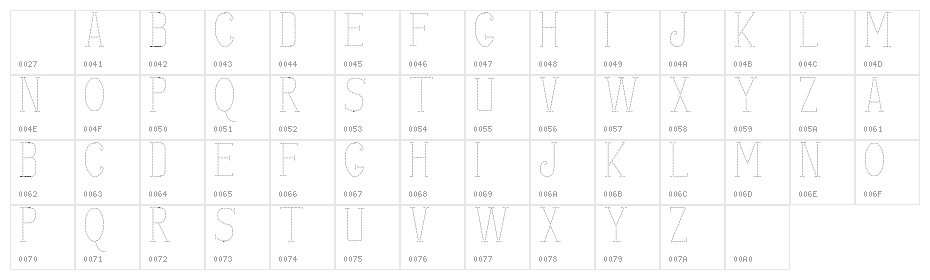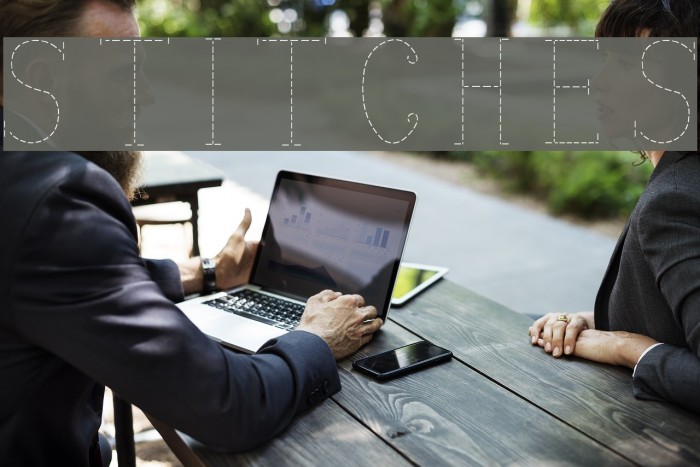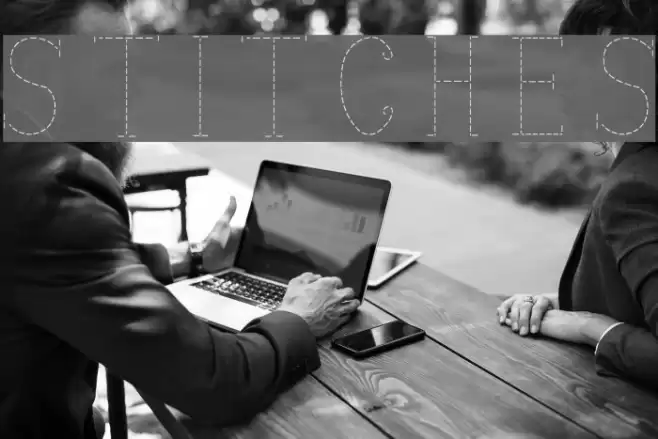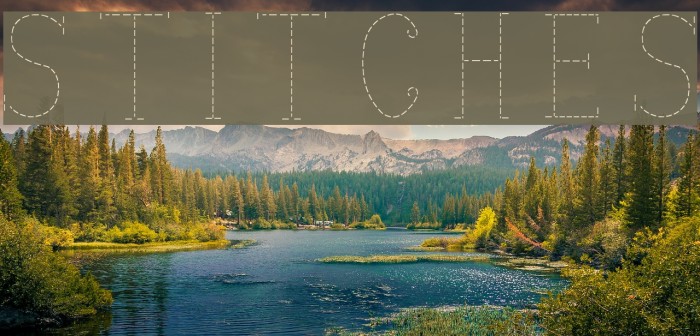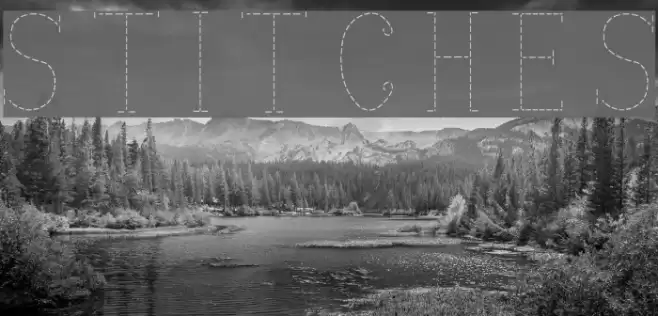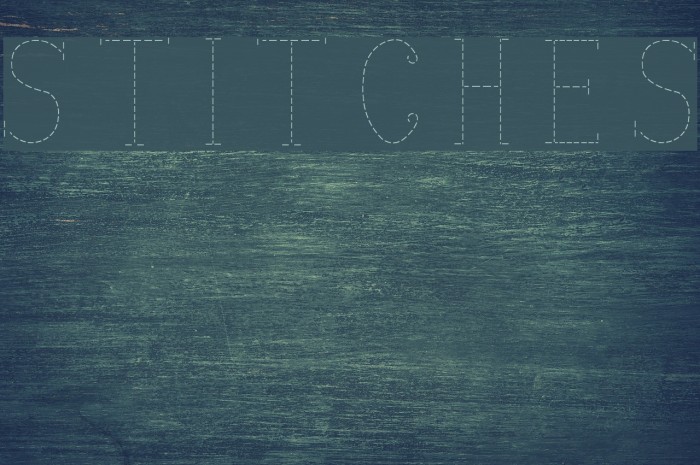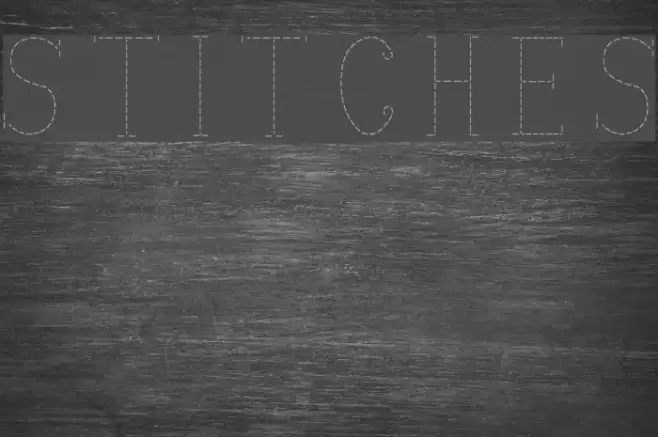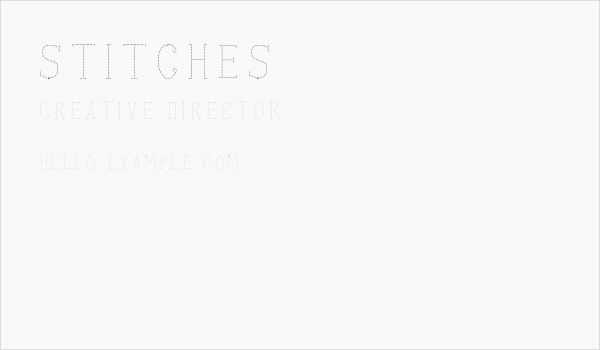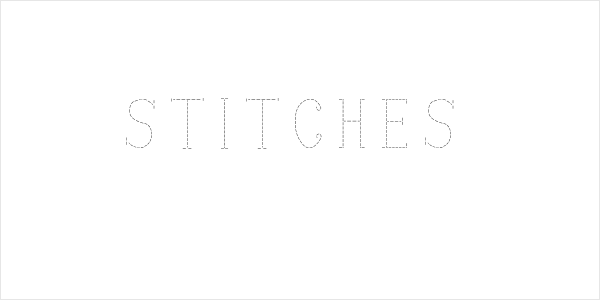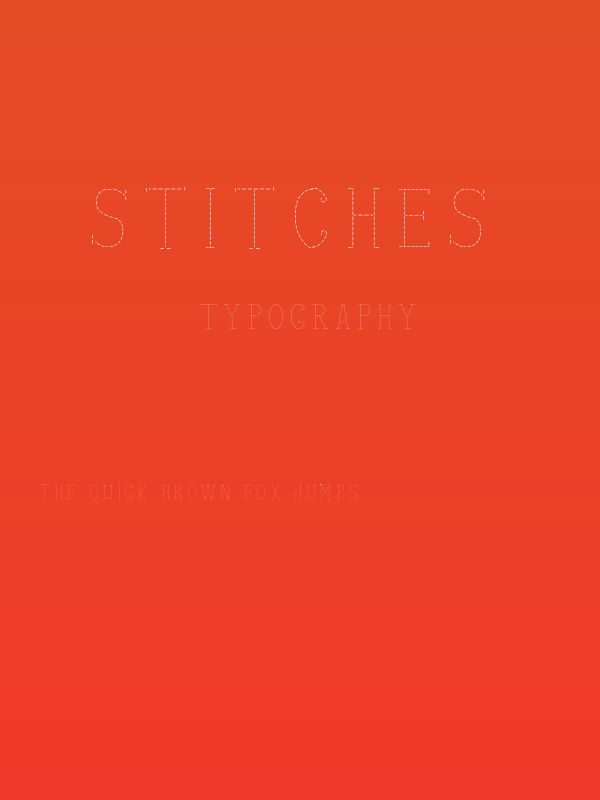
stitches Font
stitches Description
This font features a unique stitched appearance, resembling the look of letters sewn with a needle and thread. Each character is outlined with a series of small, evenly spaced dots that mimic the effect of stitching. The overall design is clean and precise, with a uniform stroke width that gives it a consistent and cohesive look. The font maintains a balance between decorative and legible, making it suitable for creative projects that require a touch of craftsmanship and elegance. The uppercase letters are well-defined, and the spacing between characters is carefully considered to enhance readability while preserving the stitched aesthetic.
| Proposed Projects | Ideal for crafting projects, sewing patterns, DIY tutorials, and creative branding. |